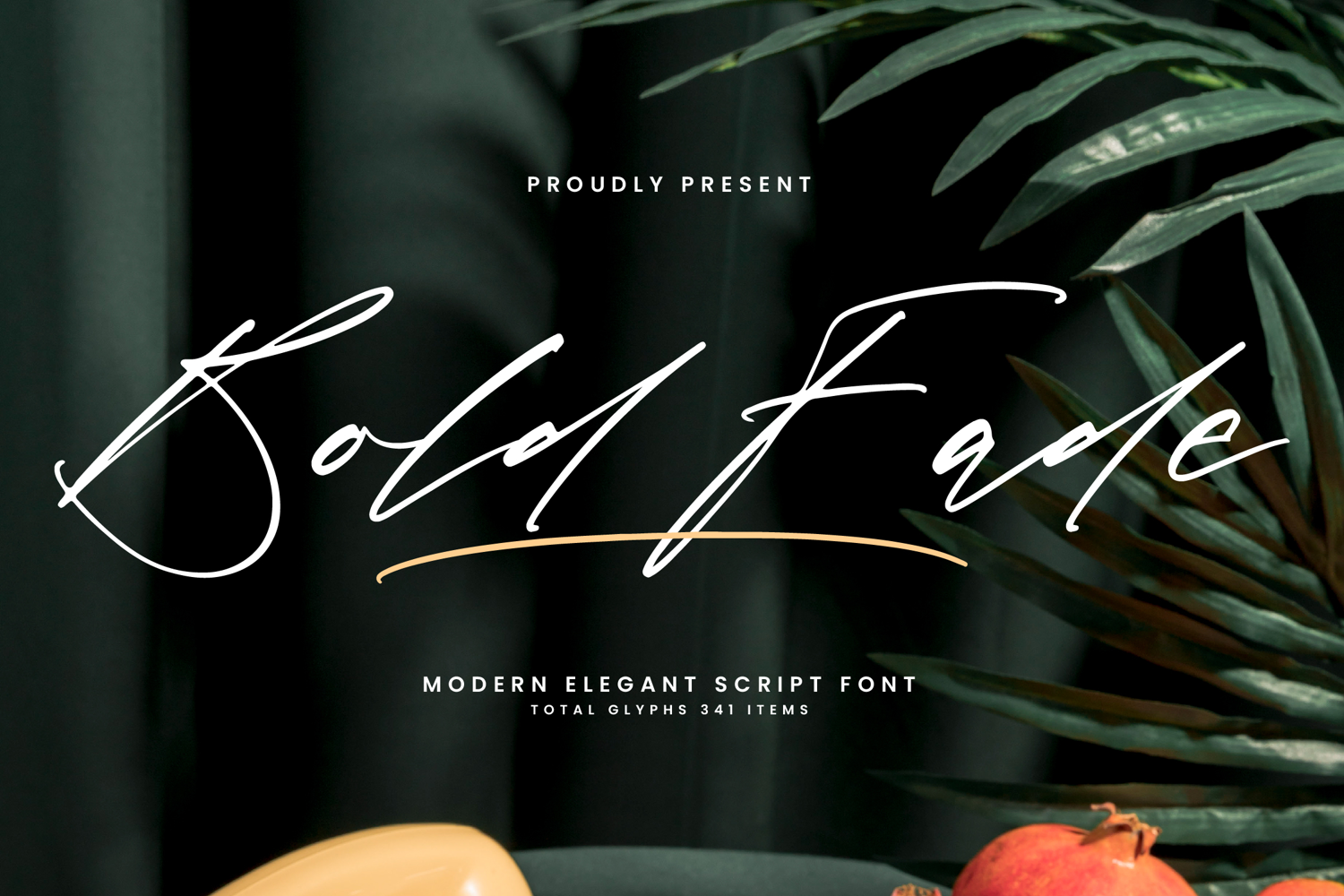
Bold Fade - Modern Elegant Script Font
Bold Fade – Modern Elegant Script Font is a striking typeface that blends bold, expressive strokes with a subtle faded effect, bringing a fresh and contemporary look to script design. Each character features carefully crafted curves and a refined monoline touch, ensuring clarity and sophistication in every word, while the faded accents add a soft, artistic depth ideal for luxury branding, product packaging, invitations, and social media graphics. With stylistic alternates and multilingual support, Bold Fade offers versatility for creative projects across print and digital platforms. Elevate your designs with this unique font—download Bold Fade today and make your next project stand out with effortless style and impact.
Ligatures, Alternate & Swashes